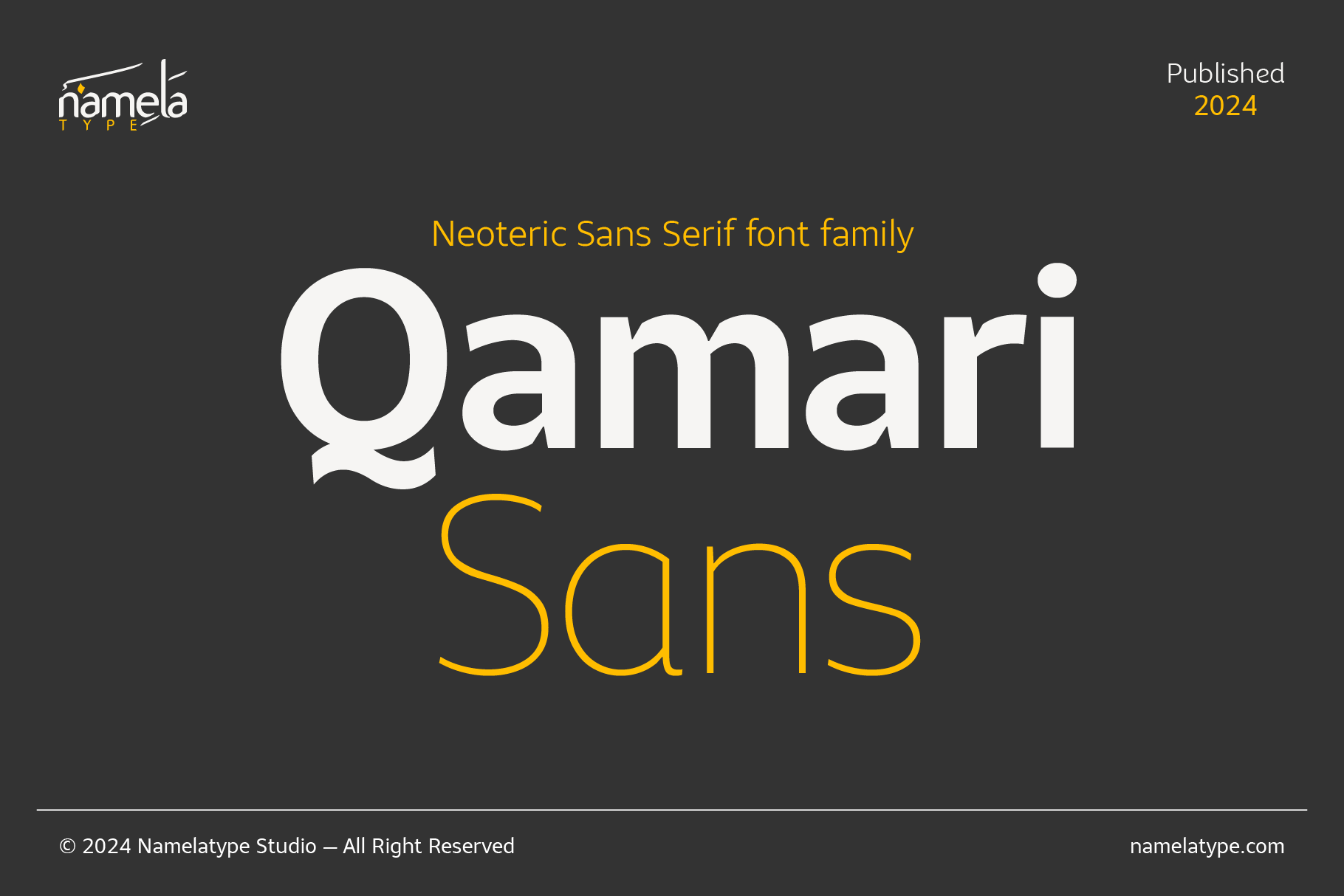
Qamari - Sans Serif Font Family
Qamari sans designed with unique feature: the cut-ins ink trap. This innovative detail enhances legibility by optimizing the flow of ink within each character, resulting in crisp and sharp letterforms even at smaller sizes. The cut-ins ink trap adds a subtle touch of refinement, setting Qamari sans apart from contemporary sans serif fonts.
Qamari contemporary sans serif available in 9 meticulously designed weights, ranging from Thin to Black, and it comes with a oblique set. Qamari offers a timeless elegance suitable for a wide range of design projects.